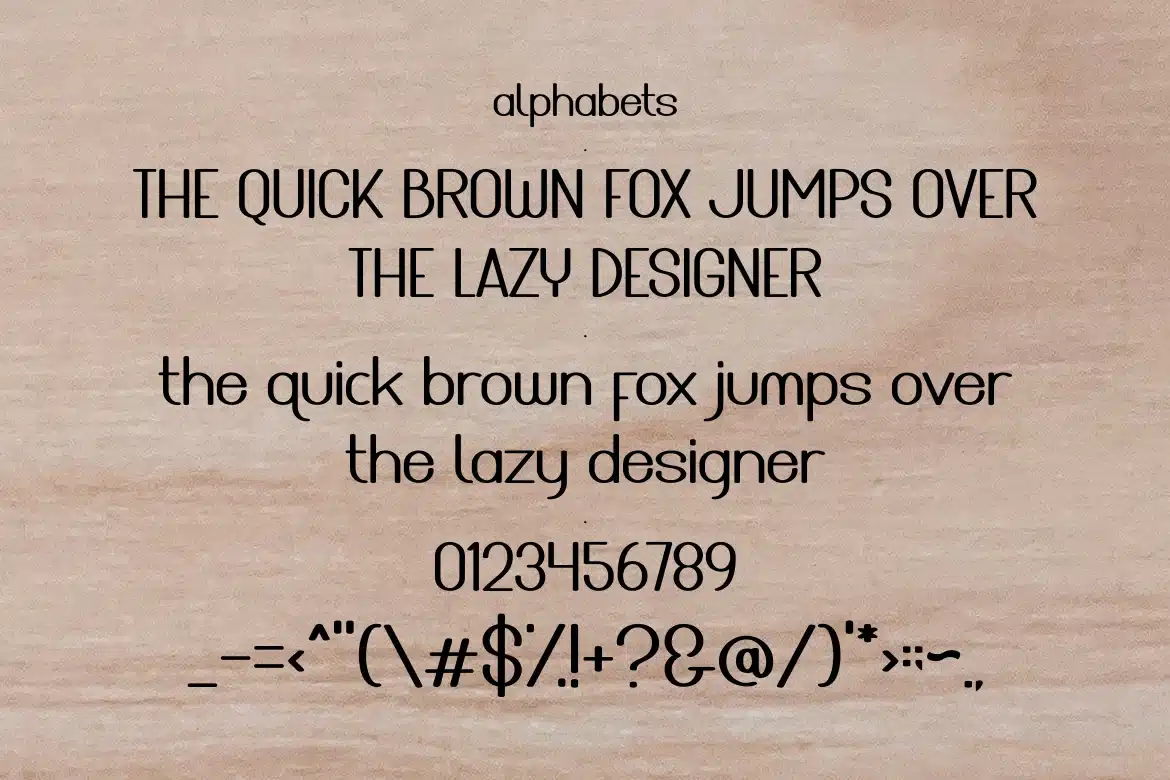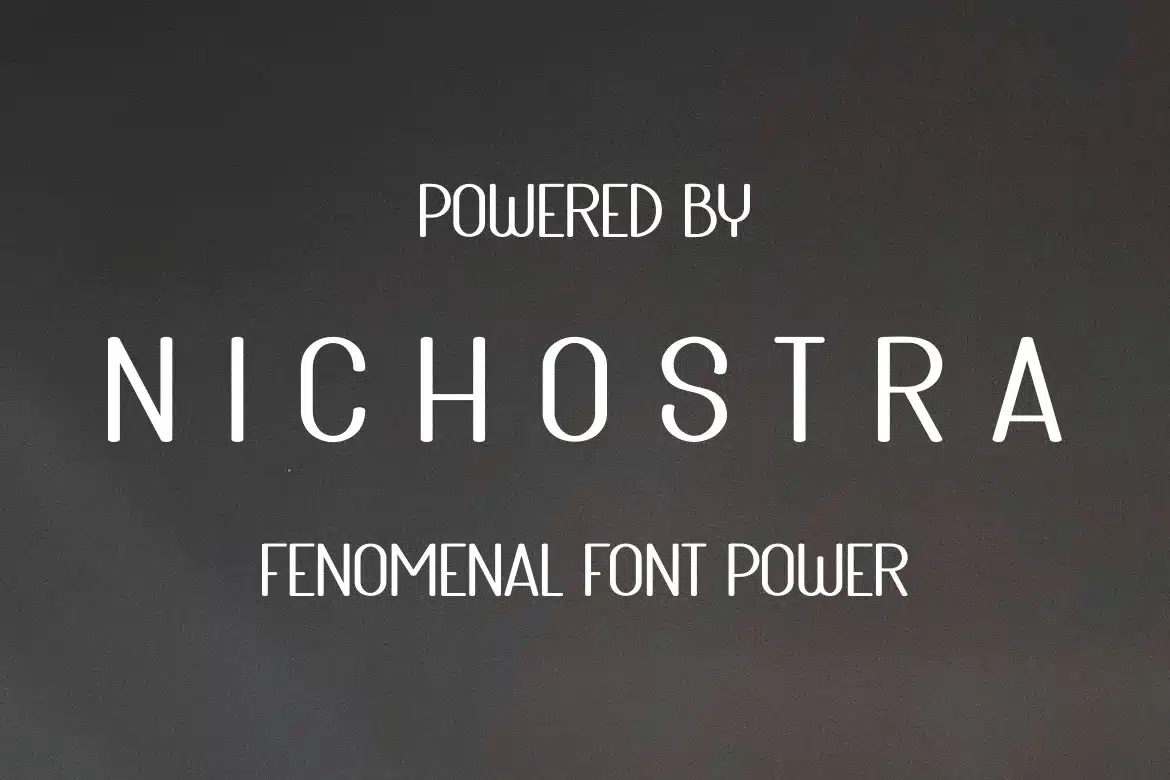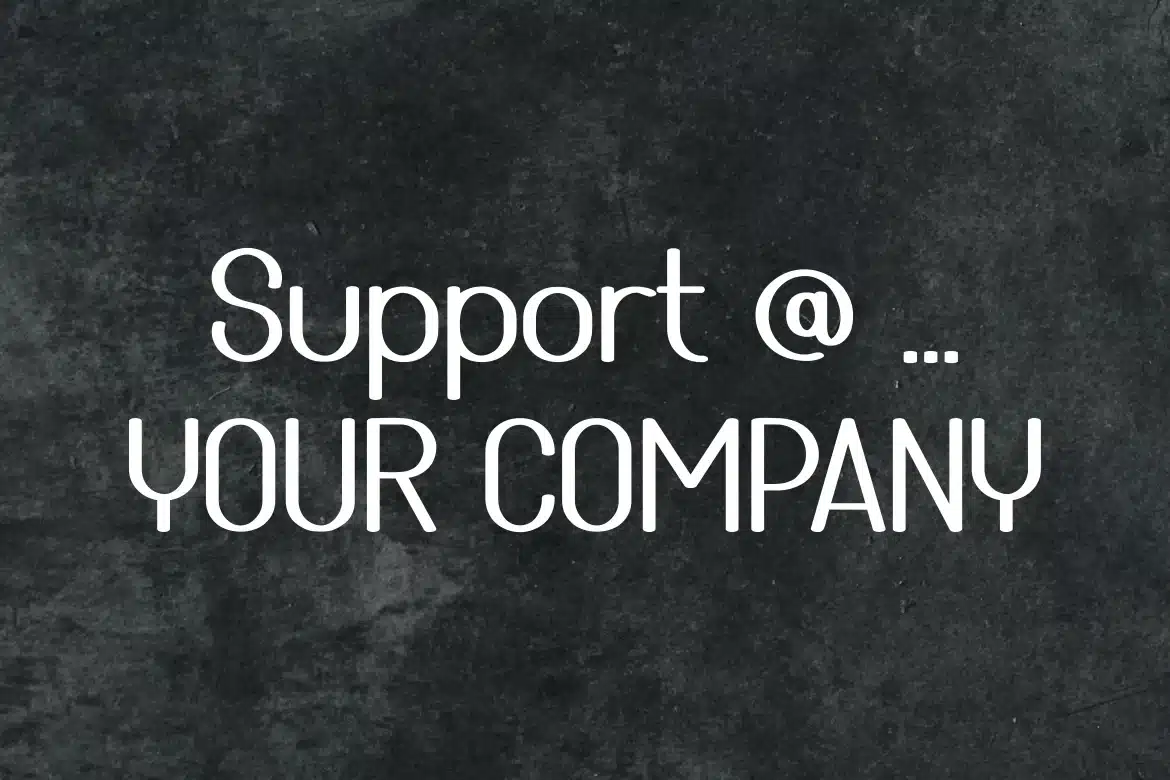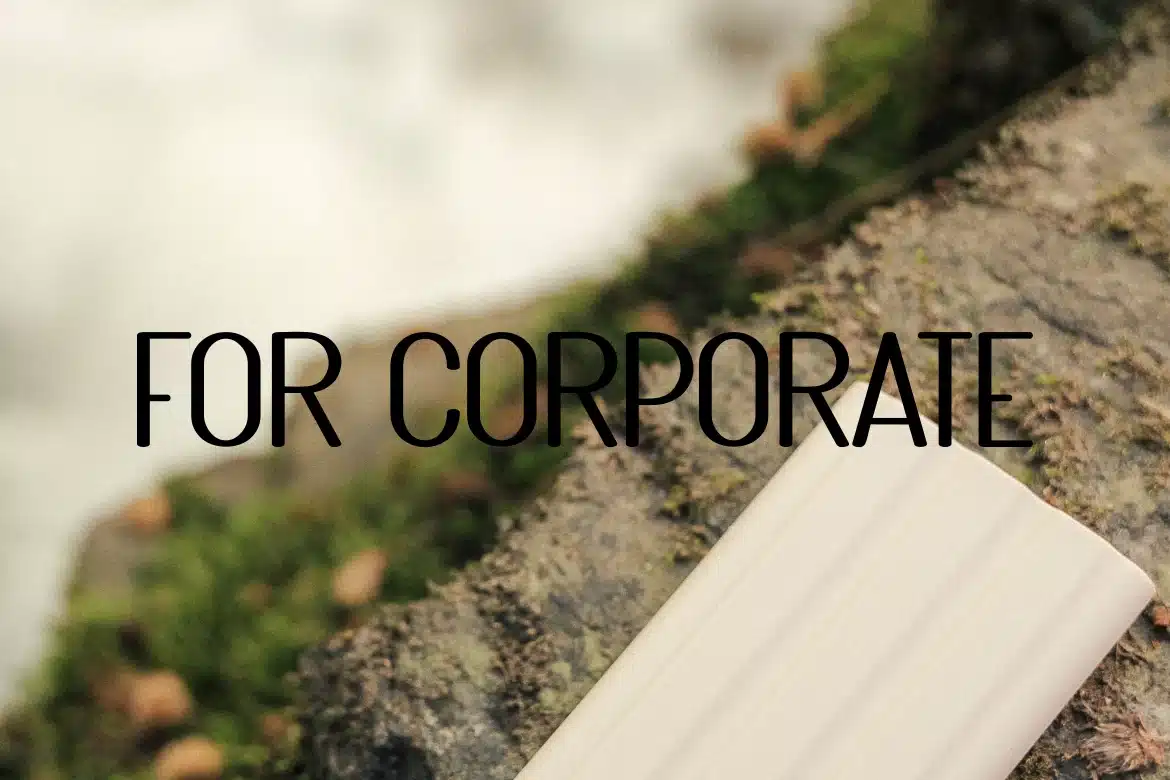
NICHOSTRA Font
monoletter
is a very classy font,
has a smooth and firm appearance.
This font is wonderful when it comes to writing brand names, company names or growing business owners.